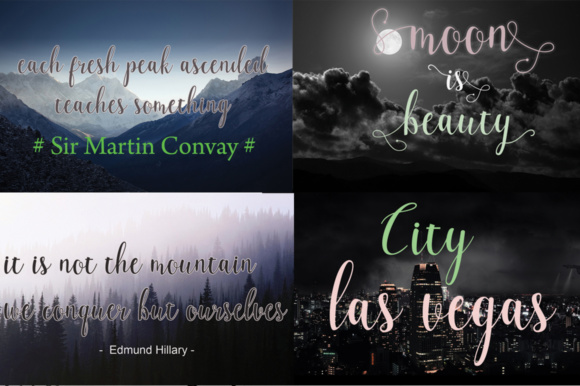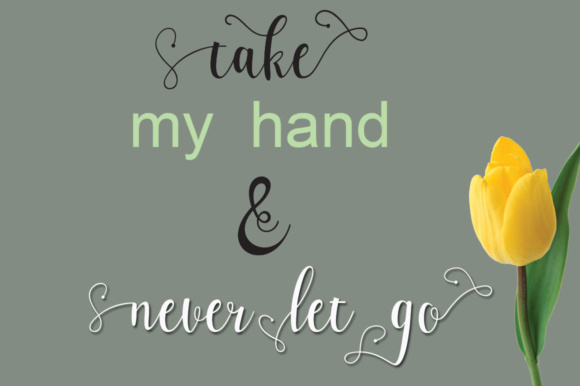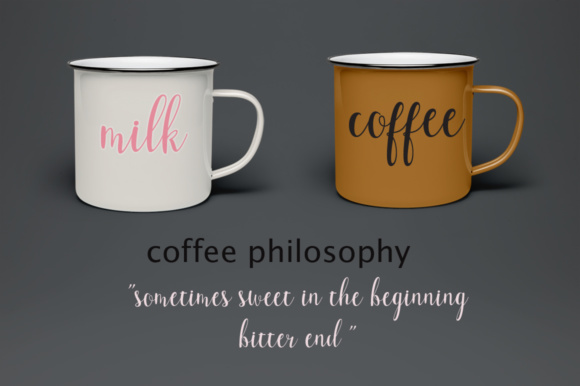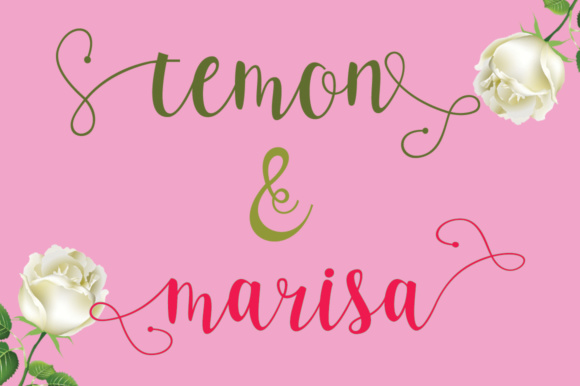
Introduction to Luciana Script 2 Font
Luciana is a beautiful calligraphy typeface with a modern style.
Luciana is suitable for a wide range of products such as wedding invitations, greeting cards, correspondence, and various other purposes .